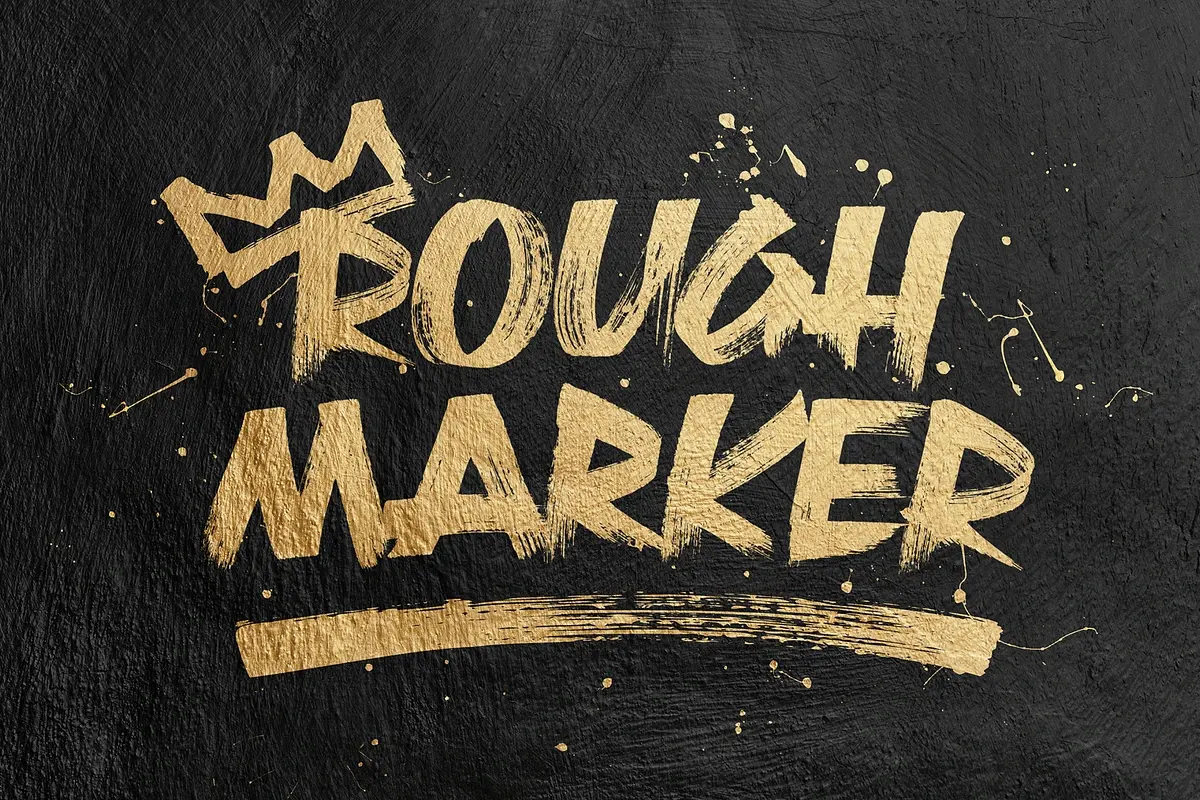
Bold, gritty, and full of personality, Rough Marker Font Free Download is a unique display typeface designed to mimic the look of marker strokes with a rugged, hand-drawn feel. Perfect for posters, branding, packaging, t-shirt designs, and creative projects, this font brings a raw, energetic vibe to your typography.
With its rough edges and bold letterforms, Rough Marker stands out with a casual, expressive style, making it ideal for designs that need to feel bold and personal. Whether you're working on a streetwear brand or an edgy event poster, this font adds a dynamic, handcrafted touch to your visuals.